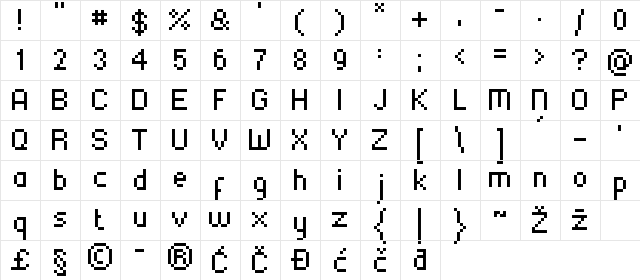
SKA_75_marul_CE_extended Regular
| Foundry | pixel-fonts.com // ska : pixel fonts // design by stiv kahlina |
| Designer | stiv kahlina |
Design Context for SKA_75_marul_CE_extended Typeface
SKA_75_marul_CE_extended offers clean, dependable letterforms without strong stylistic allegiance, making it a practical choice for designers who need flexibility.